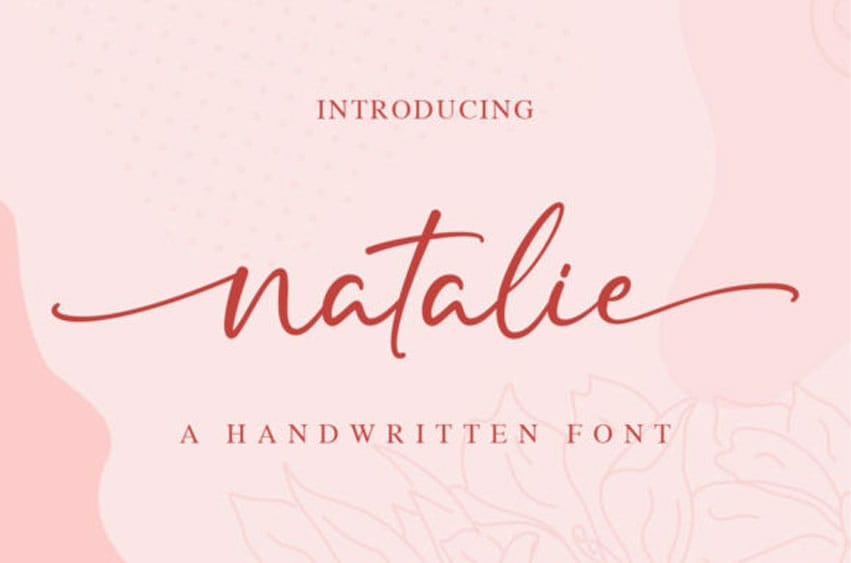
Natalie Handwrittten Font is a thin lettered and graceful script font. Fall for its ravishing style and use it to create gorgeous wedding invitations, beautiful stationary art, eye-catching social media posts, and much more!